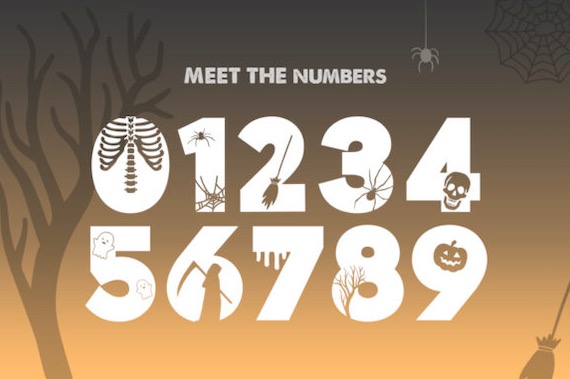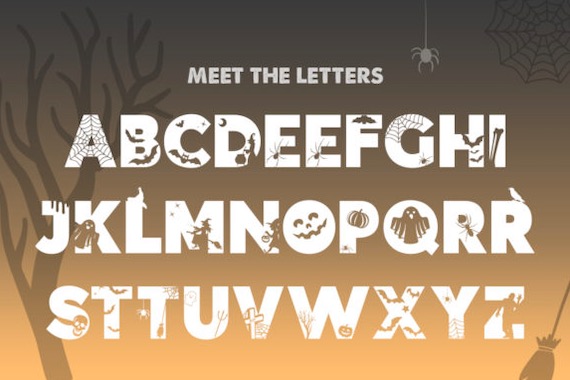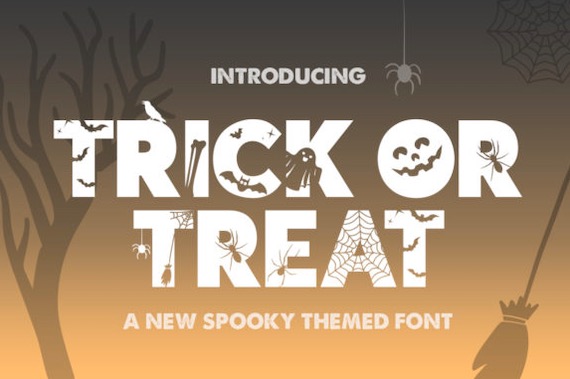
Trick or Treat Font
Trick or Treat Font is a future typeface with a unique display font style. It was created and shared by Salt and Pepper Fonts. This fancy font has a groovy and funny look along with a stunning look for every design project.